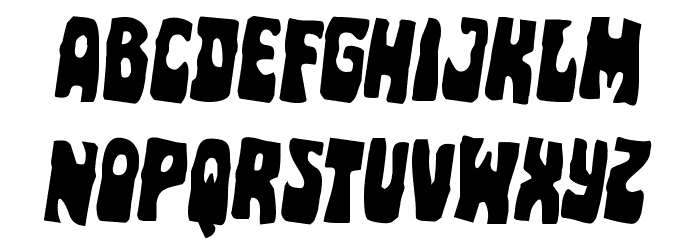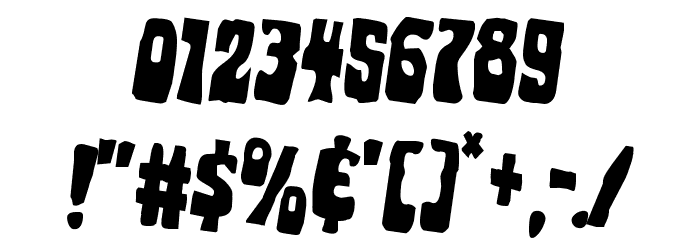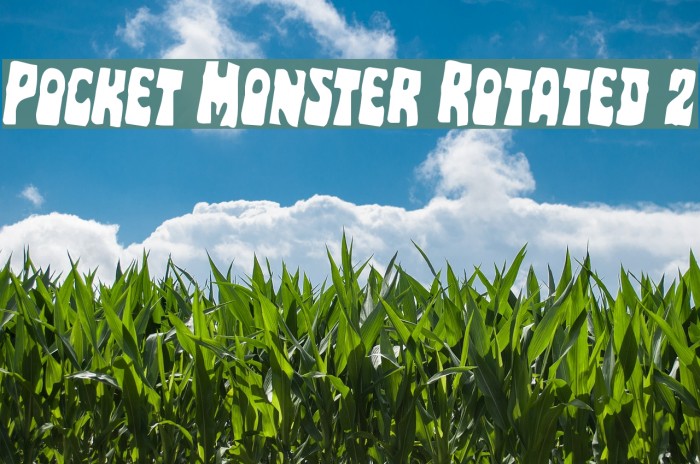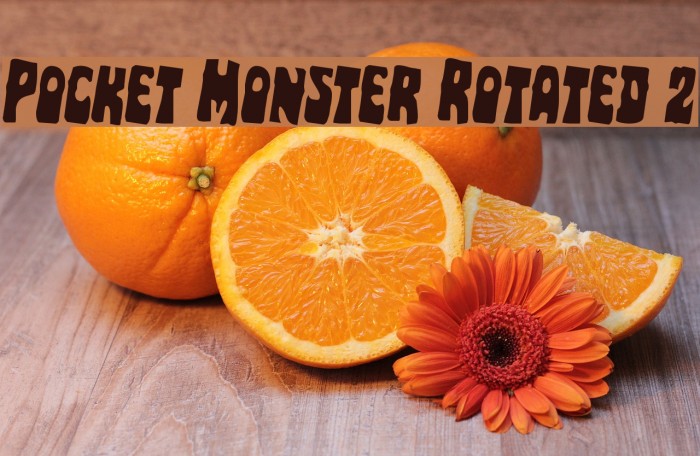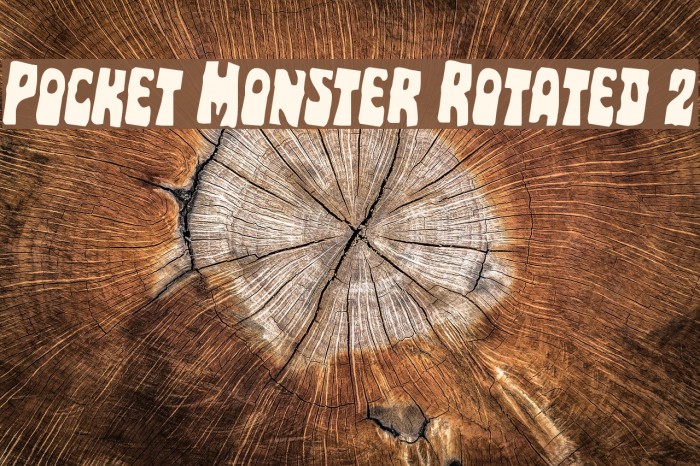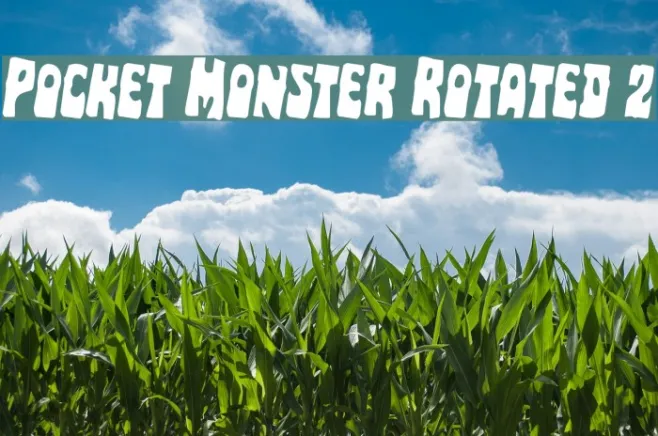
Pocket Monster Rotated 2 Font
This font features a bold and playful design with a distinctly cartoonish and whimsical style. The characters are thick and rounded, with a slightly irregular shape that adds to its quirky and fun appearance. The font is highly legible, with each letterform being distinct and easily recognizable. The boldness of the strokes gives it a strong presence, making it ideal for attention-grabbing designs. The font includes a full set of uppercase and lowercase letters, numbers, and a variety of special characters, ensuring versatility in its application.
A bold, playful font with a cartoonish style and strong presence.
- Proposed Projects: Ideal for children's books, playful branding, video game graphics, and posters.
- Overall Style: Playful, Whimsical